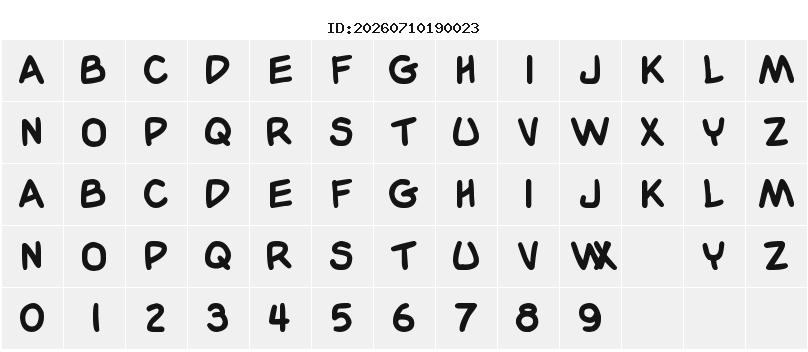
Garfield Preview
• Font Name: Garfield
• Font ID: Garfield:Version 1.00
• Full Font Name: Garfield
• Version: Version 1.00 October 25, 2008, initial release
• PostScript Name: Garfield
• Character Count: 653
• Description: This font was created using FontCreator 5.5 from High-Logic.com
About Garfield.ttf
Garfield.ttf is a modern, elegant sans-serif font designed for ultimate readability and visual harmony. Perfect for branding, headlines, web design, and print materials.